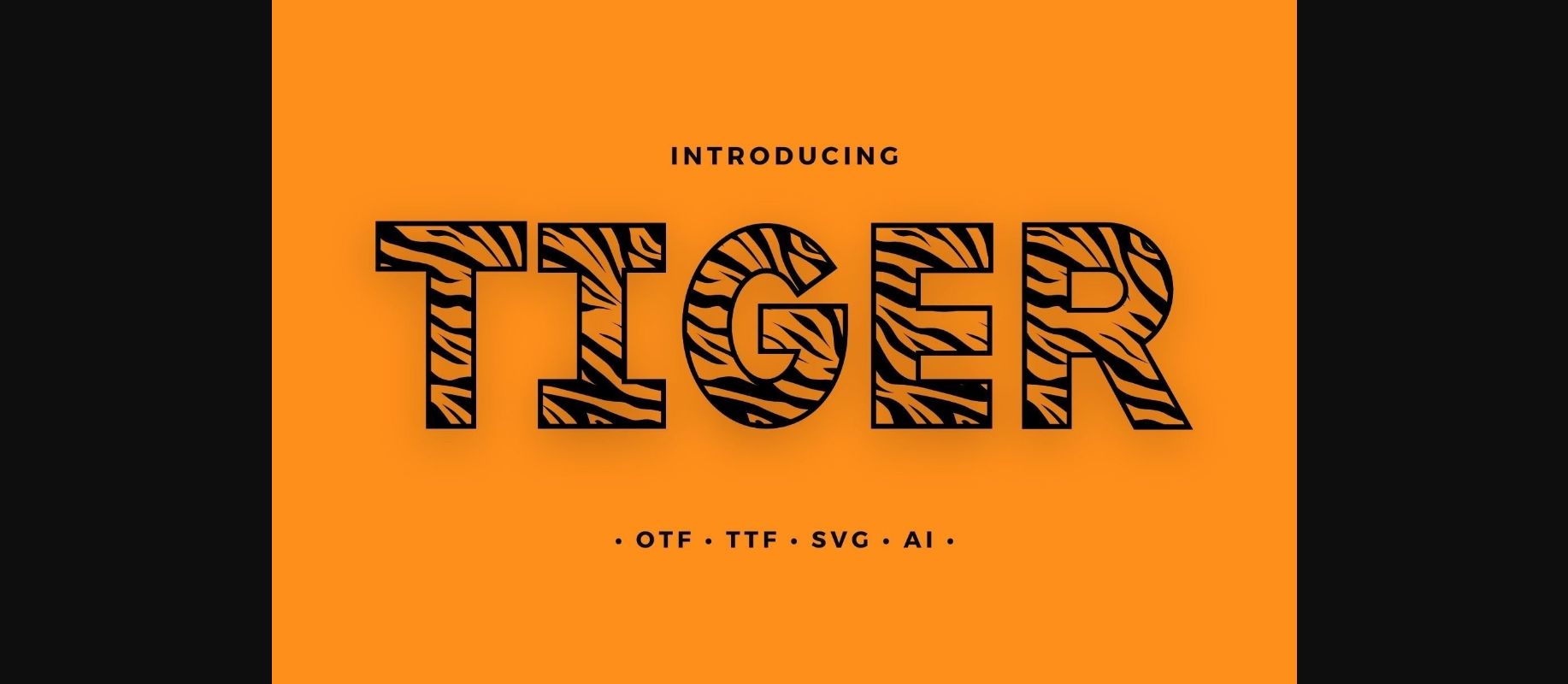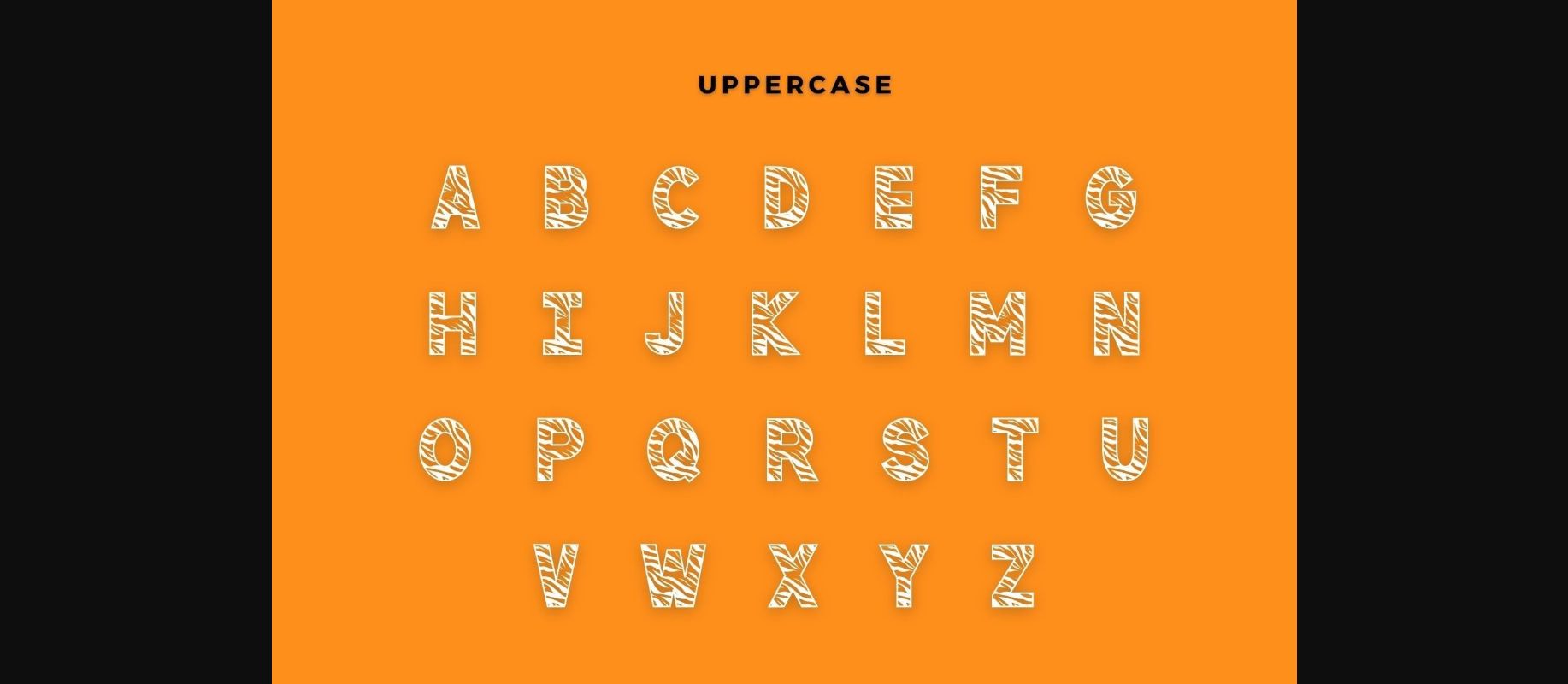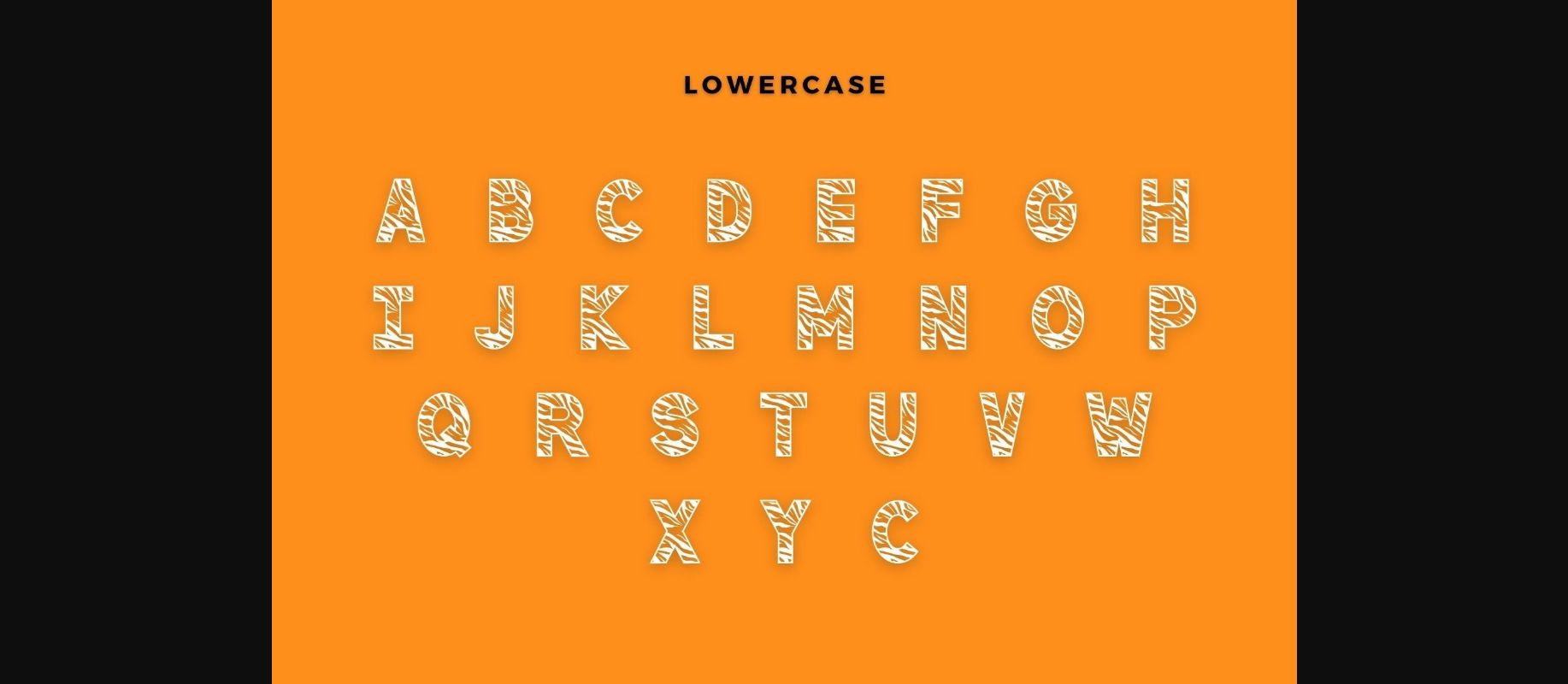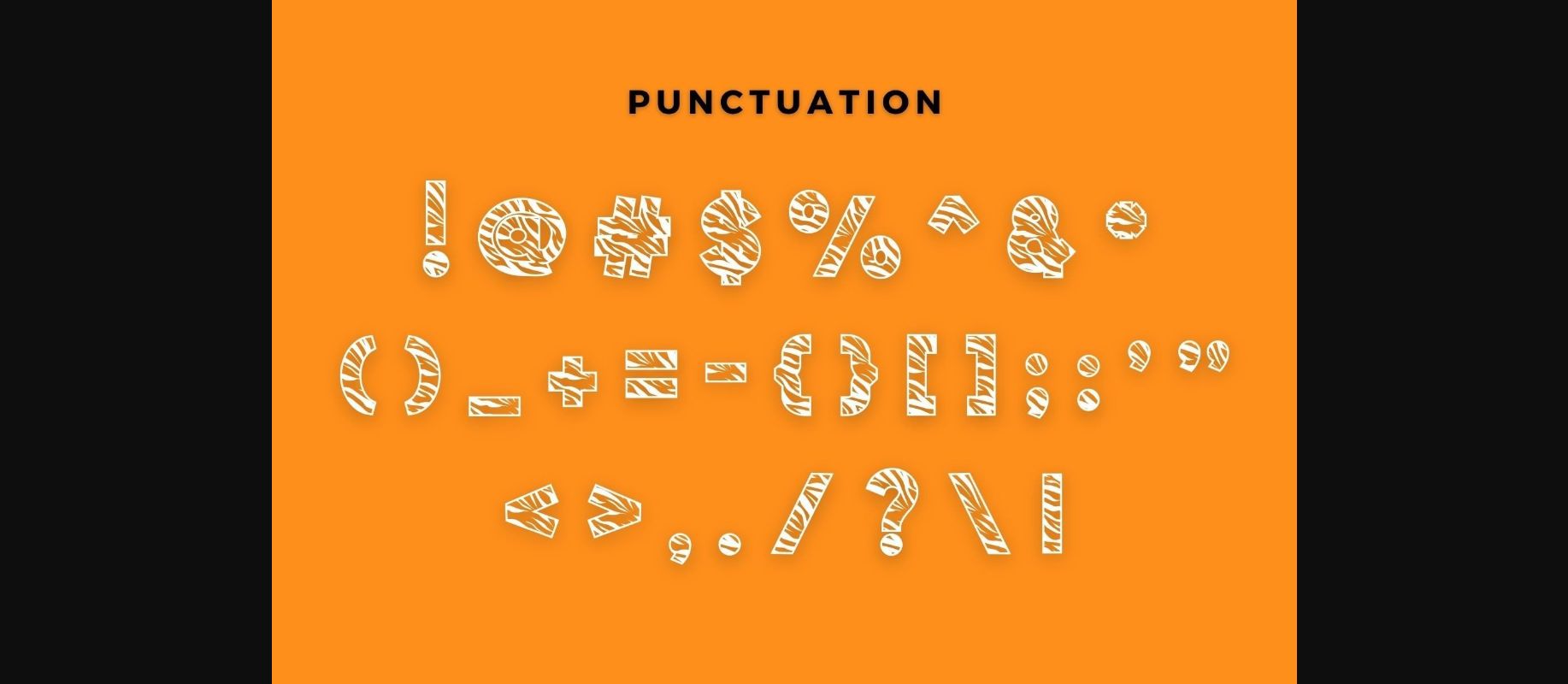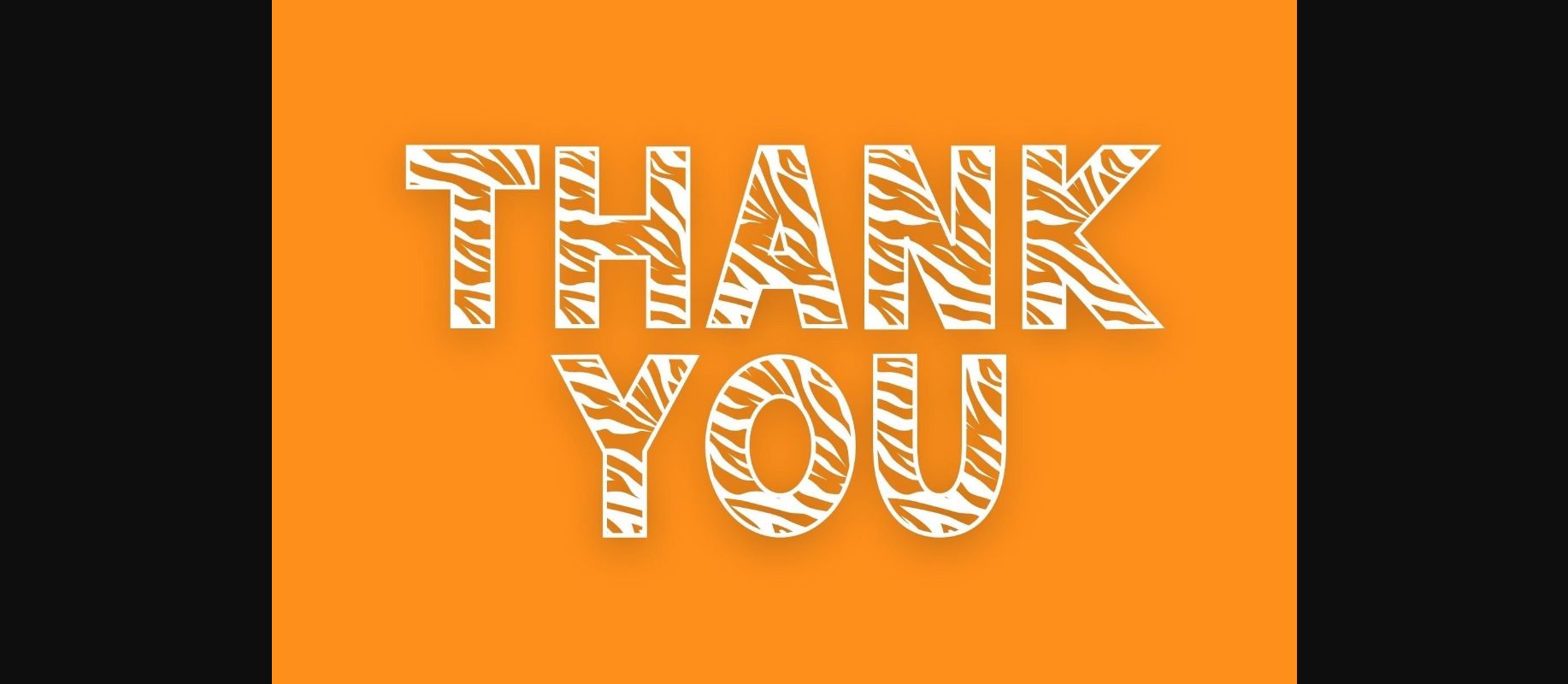
Tiger Font
About Tiger Font
Tiger is a cool animal-textured and incredibly unique decorative font. You can use it for various projects such as blog posts, logos, branding, ads, invitations, greeting cards, planners, photo albums, decorations, and much more. Add it to any of your designs, and enjoy the results!